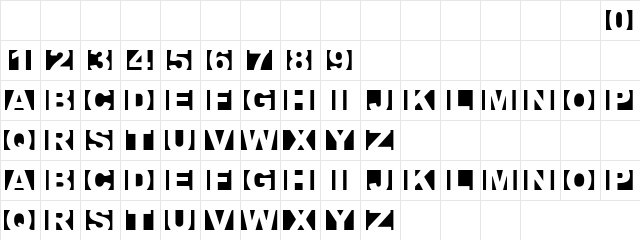
Scenic Minjo Regular
Design Context for Scenic Minjo Typeface
Scenic Minjo offers clean, dependable letterforms without strong stylistic allegiance, making it a practical choice for designers who need flexibility.